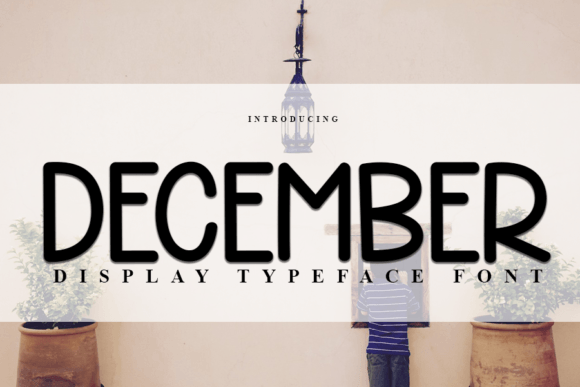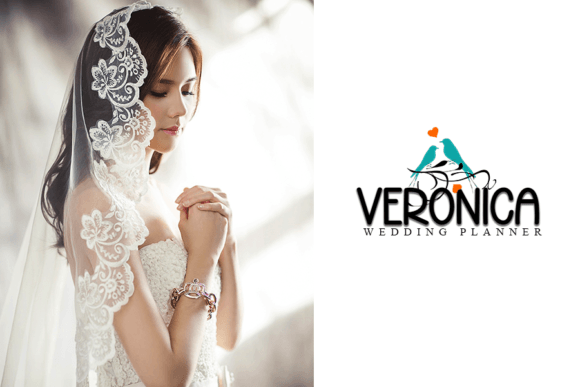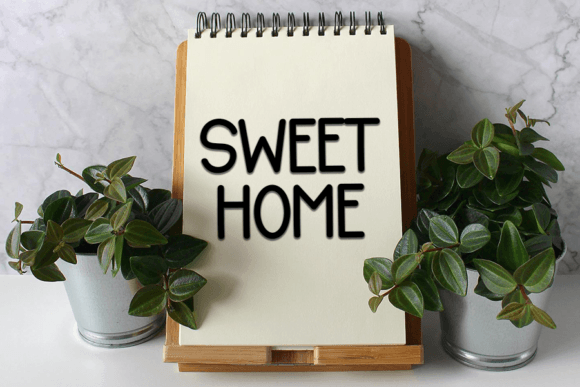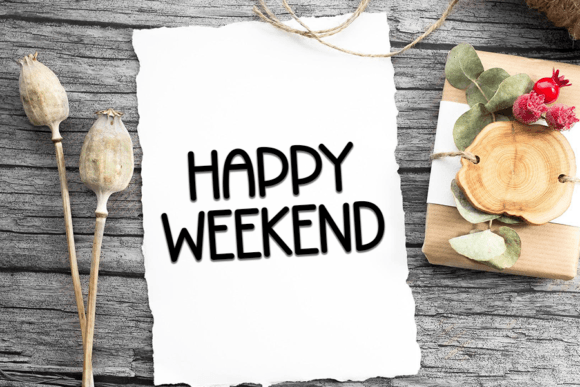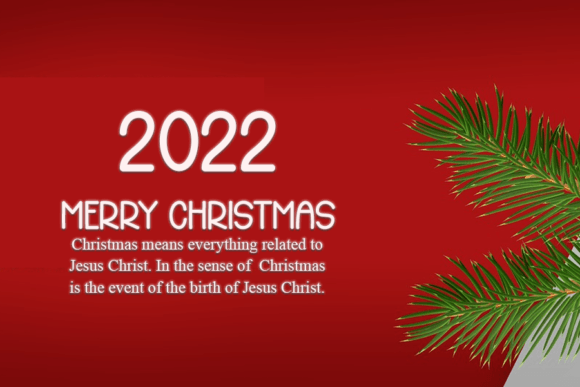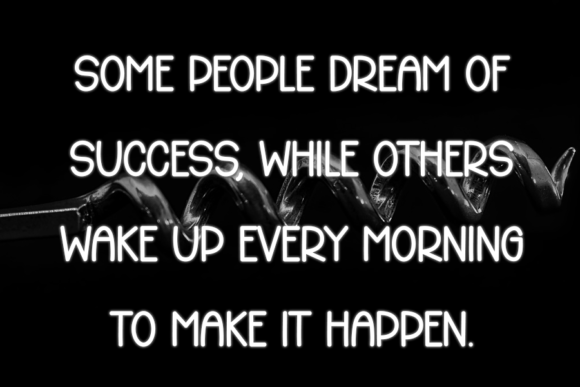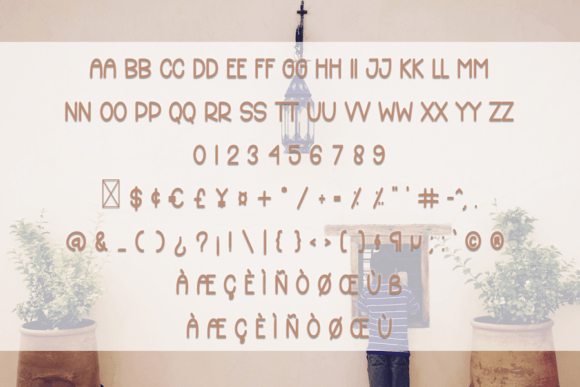
Discover the Magic of December Font
It’s that time of the year when creativity flows like hot chocolate on a cold winter’s night. You’re browsing through your design stash, looking for the perfect font to add a personal touch to your holiday projects. Suddenly, you stumble upon a font that catches your eye – December Font. Its unique, handwritten style is the perfect blend of modern and whimsical, making it a must-have for any designer.
December Font is more than just a pretty face. Its versatility makes it suitable for a wide range of applications, from crafts and digital design to presentations and greeting cards. As a designer, you’ll appreciate the value of having a font that can adapt to any occasion, making it a valuable addition to your design arsenal.
December Font Key Features
- Unique Characteristic: December Font features a unique blend of modern and vintage elements, making it suitable for a wide range of designs
- Font Weight: Available in Light, Regular, Medium, Bold, and Extra Bold weights
Designer Review: December Font
I’ve had the chance to work with December Font, and here’s my honest take on it.
- ✨ Beautiful, elegant design: The December Font is perfect for creating a sophisticated, high-end feel in your designs.
- ✨ Highly legible: The font’s clear, clean lines make it easy to read, even in smaller font sizes.
- ✨ Versatile: December Font comes in multiple weights, making it suitable for a wide range of design projects.
- ⚠️ Limited language support: Unfortunately, the December Font may not support all languages, which could be a limitation for international design projects.
- ⚠️ Not ideal for body text: While the font is great for headlines and titles, it may not be the best choice for body text due to its elegant, decorative feel.
Overall, the December Font is a beautiful, sophisticated choice for designers looking to add a touch of elegance to their projects. While it may have some limitations, it’s a great option for certain types of designs, such as luxury branding or high-end advertising.
Tips for Getting the Most Out of December Font
Here are some tips for getting the most out of December Font:
- Use it in conjunction with festive colors and imagery to create a cohesive design.
- Use it in headings and titles to draw attention to important information.
December Font is commonly used in:
- Holiday-themed designs and marketing materials.
- New Year’s Eve and Christmas party invitations.
- Winter-themed social media graphics and posts